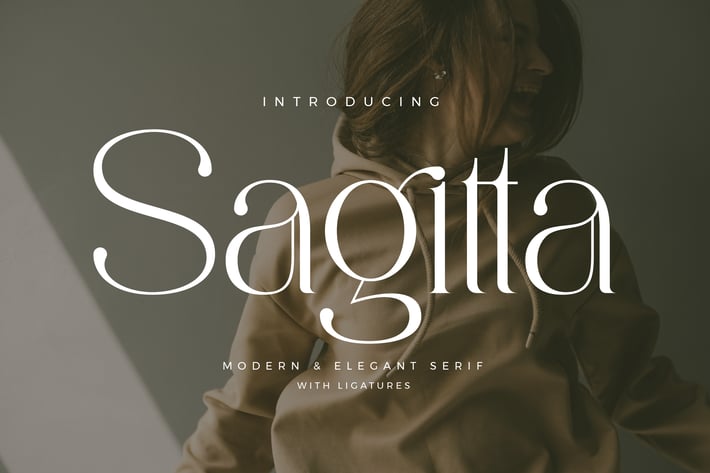
Sagitta Elegant Serif Font
Sagitta Stylish Ligature Typeface, inspired by the famous minimalist logo perfect for the purposes of designing templates, brochures, videos, advertising branding, logos and more.